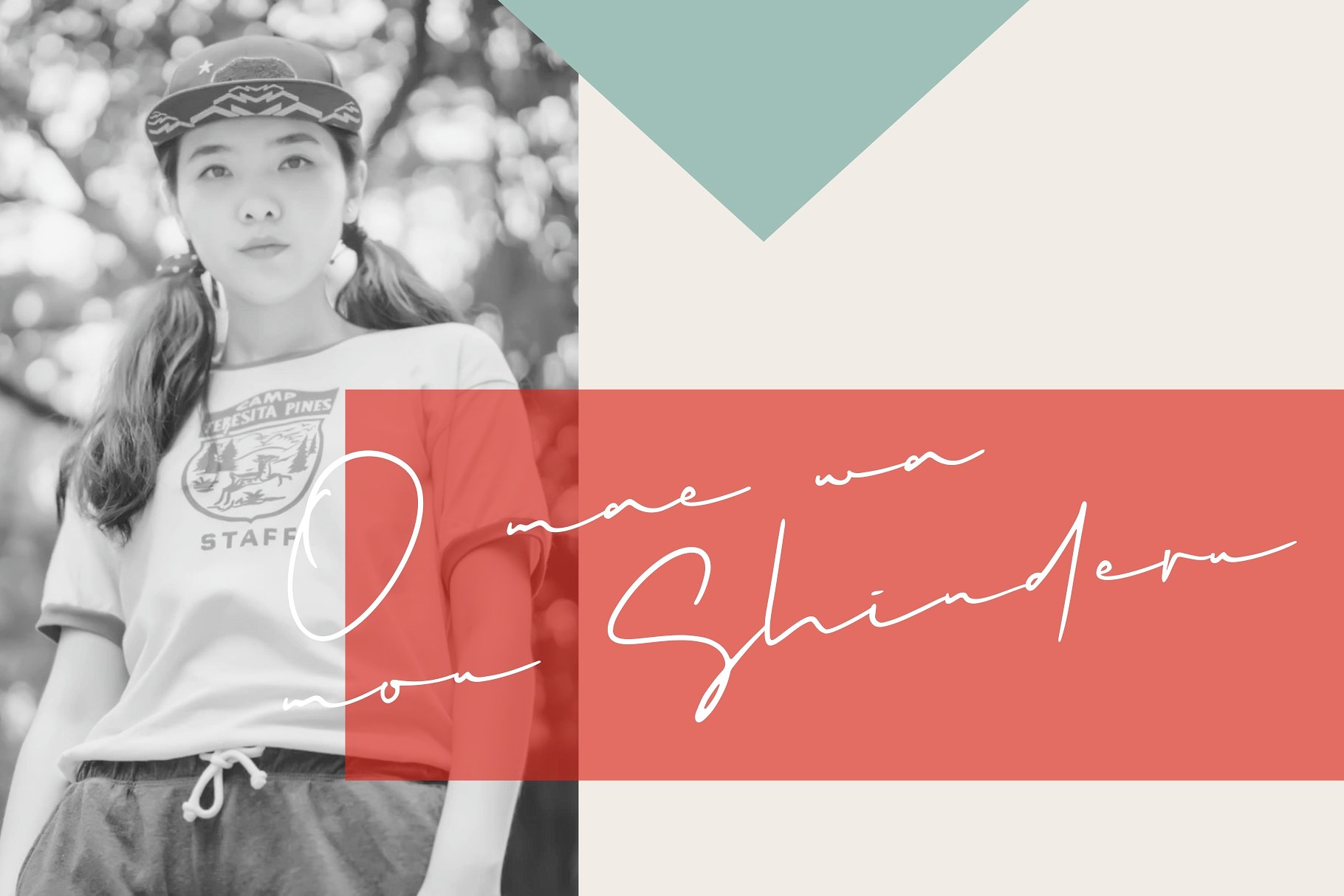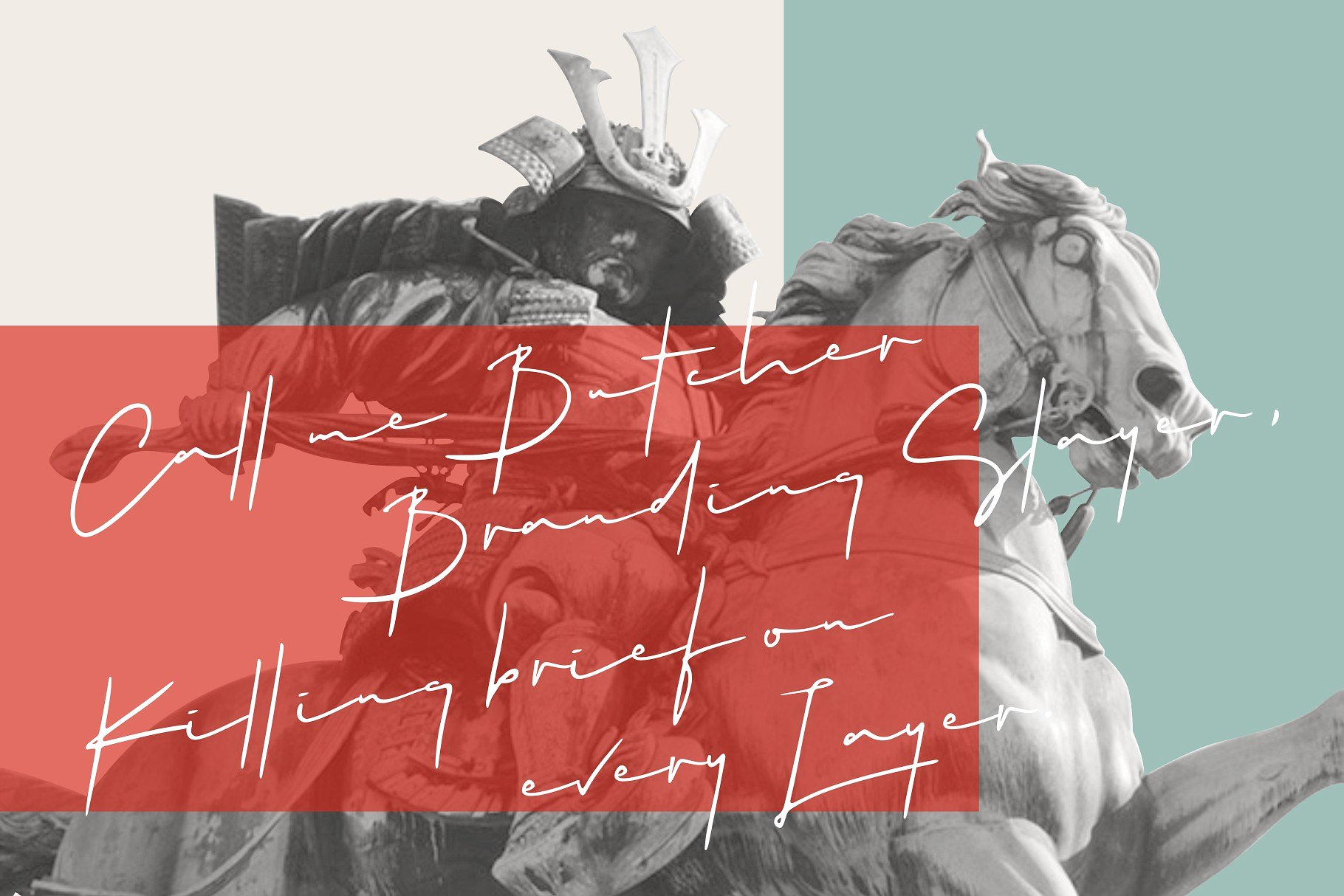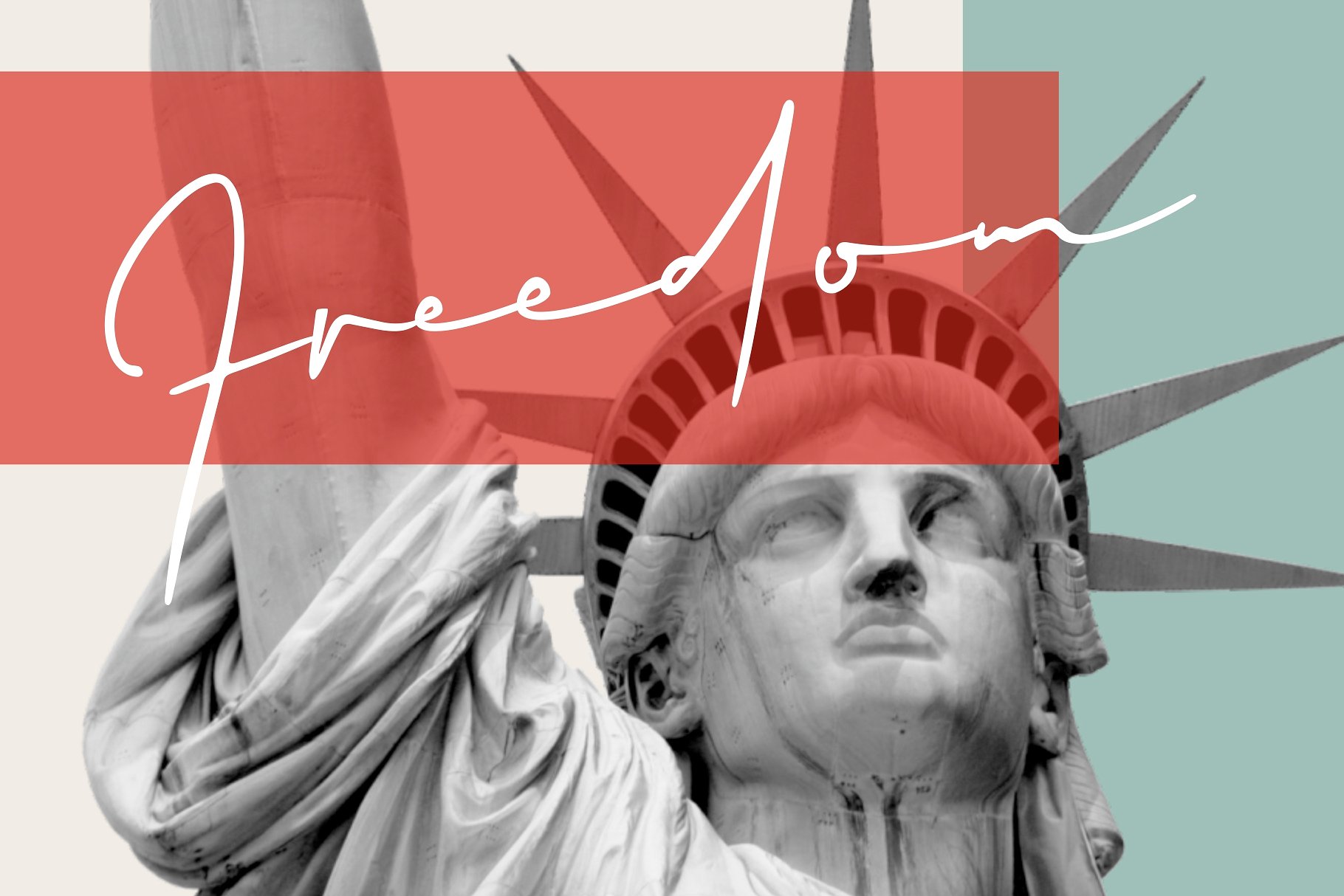
Hellios Signature Font
This is an elegant signature font! It allows you to create stunning and easy hand-lettering in an instant. Introducing Hellios Font. Hellios Signature Font is a Handwritten Script Font With a natural effect of an ink. It has multipurpose value such as digital signature, Branding, Email signature, Quote, and much more.